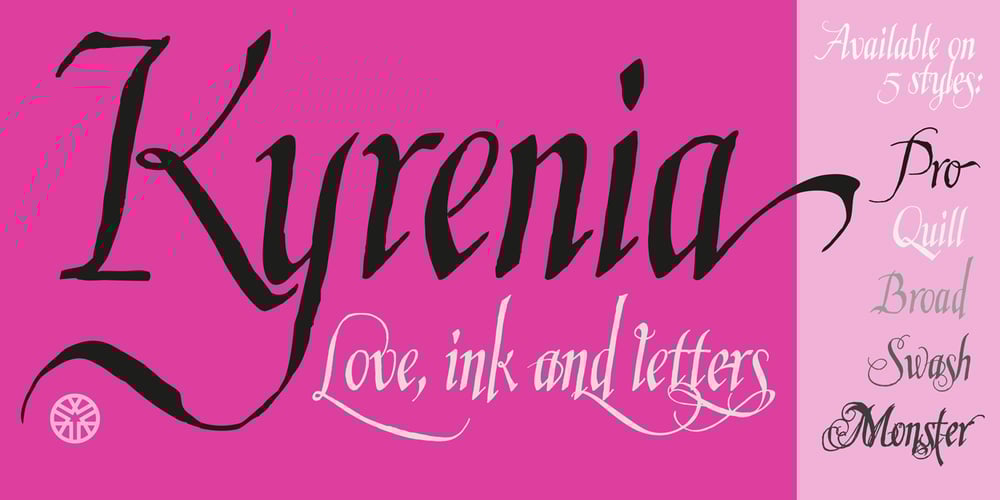
Kyrenia Font Family was designed by Jesus Barrientos and published by Talavera. Kyrenia contains 5 styles and family package options. Calligraphic font born from mixing chancery cursive strokes with some copperplate gestures. Kyrenia is the italic counterpart of Agony TTW. You can combine Kyrenia’s four different styles to create the illusion of handmade, along with a lot of ligatures and some alternate endings. This four styles are Quill (the basic one), Broad (taller and stiffer), Swash (ornamental and romantic) and Monster (a hypnotic strange blend).